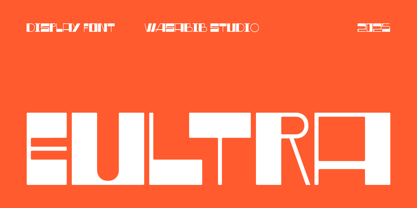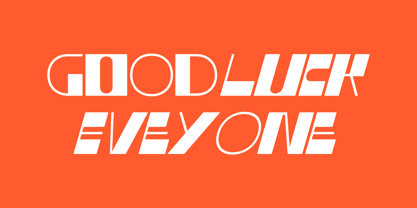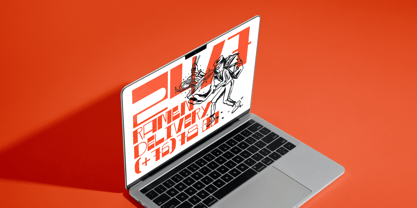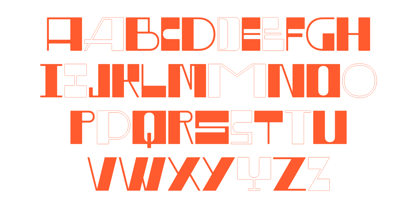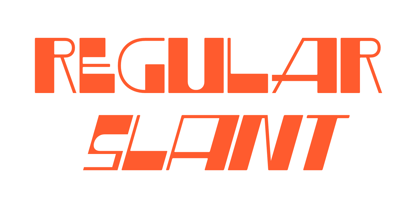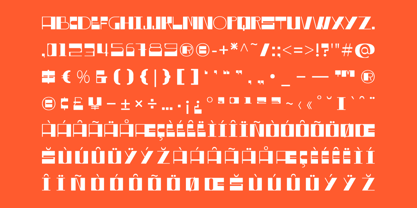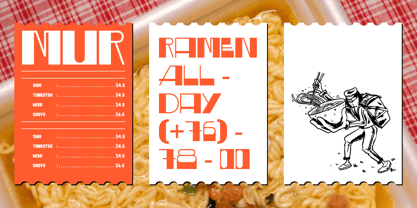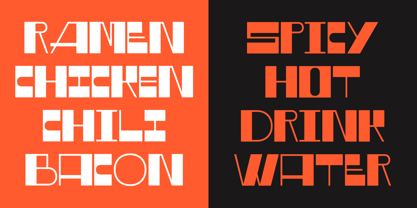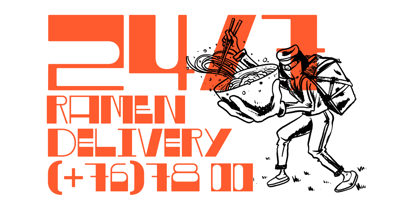
The Eultra Font Family was designed by Miftahul Habib and published by Wasabib Type Foundry. Eultra contains 2 styles and family package options.
Designers: Miftahul Habib
Publisher: Wasabib Type Foundry
Foundry: Wasabib Type Foundry
Design Owner: Wasabib Type Foundry
Eultra